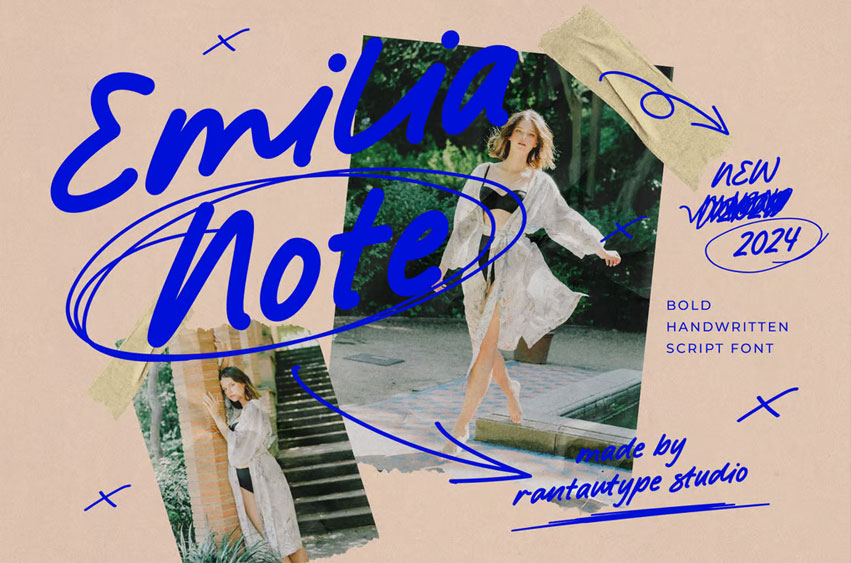
EmiliaNote Font is a bold, natural handwritten font created with love by Rantautype Studio. Emilia Note brings a fresh and clean look to your design projects. Along with the font, Casbery comes with a clipart, allowing you to mix and match elements for a more natural design aesthetic.
Emilia Note is a perfect choice for any creative endeavor, including chic lifestyle designs such as logotypes, advertisements, watermarks on photography, stationery, branding projects, displays, magazines, invitations, corporate branding, product design, labels, business projects, and many other projects with a fun touch.